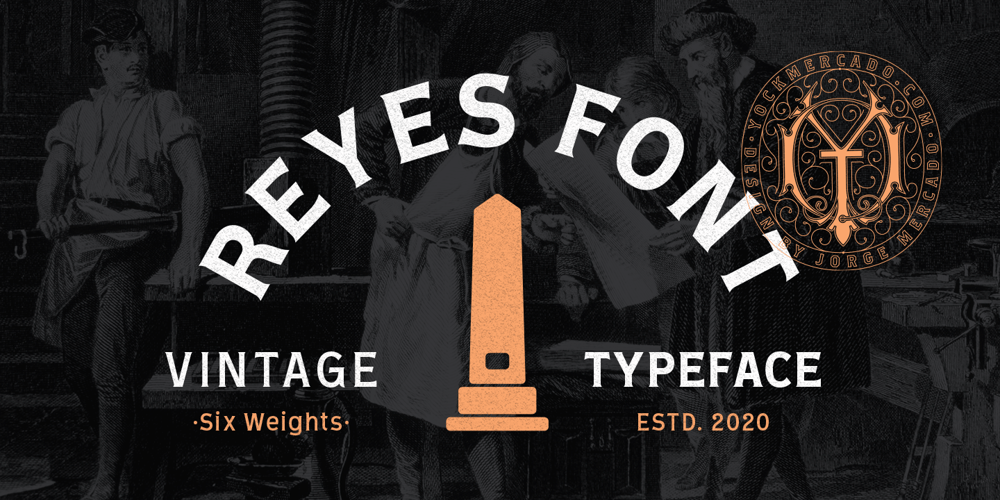
Reyes Font Family was designed by Jorge Mercado and published by Yock Mercado. Reyes contains 6 styles and family package options. Reyes is a modern typeface with influence on consumer product labels from the early 1900s, is ideal for use in display texts and thanks to its 6 typographical weights lends itself to complex typographic design compositions.